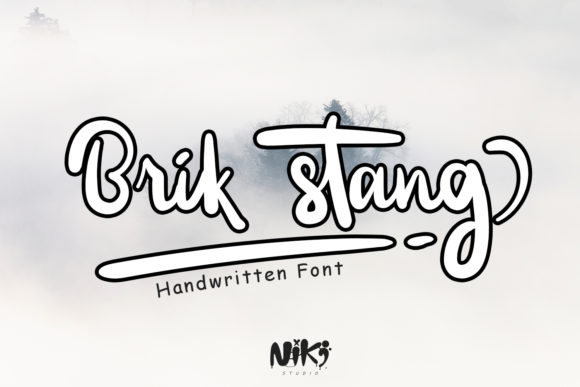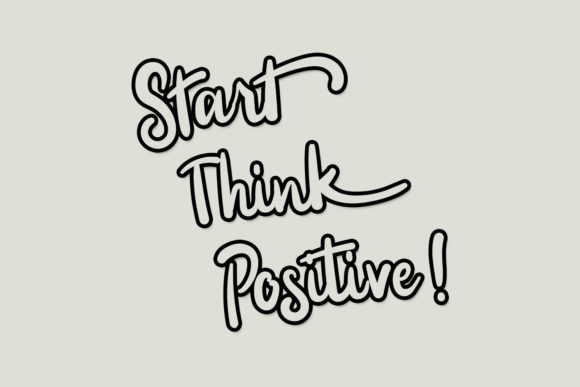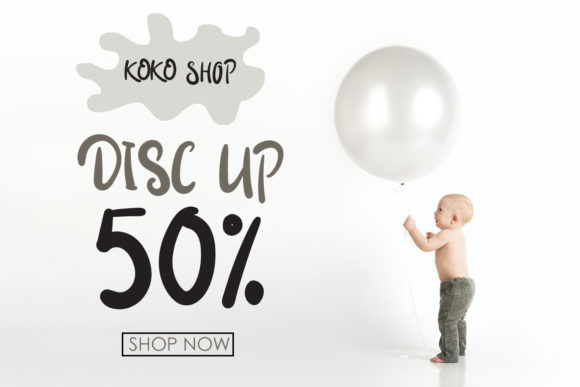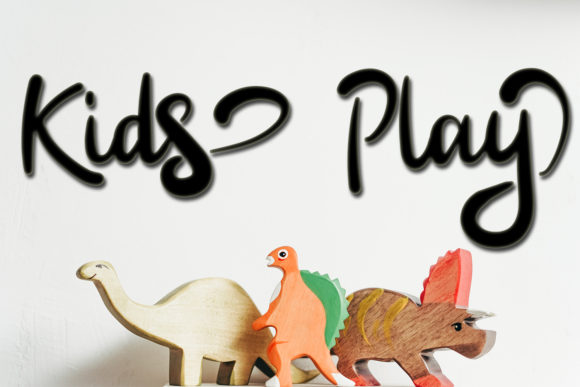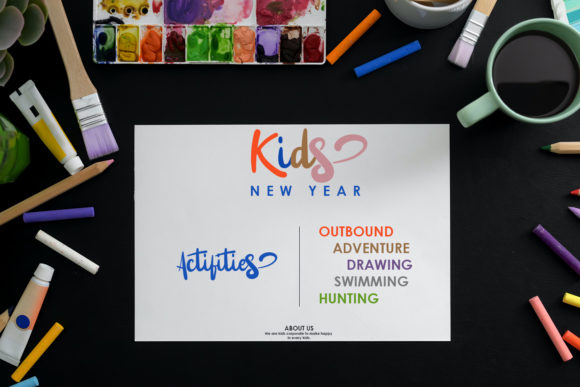
About Brik Stang Font
Brik Stang feels equally charming and friendly. This stunning handwritten font is a stylish homage to classic calligraphy. It features a varying baseline, smooth lines, gorgeous glyphs and stunning alternates. Fall in love with its authentic feel and use it to create gorgeous wedding invitations, beautiful stationary art, eye-catching social media posts, and cute greeting cards.